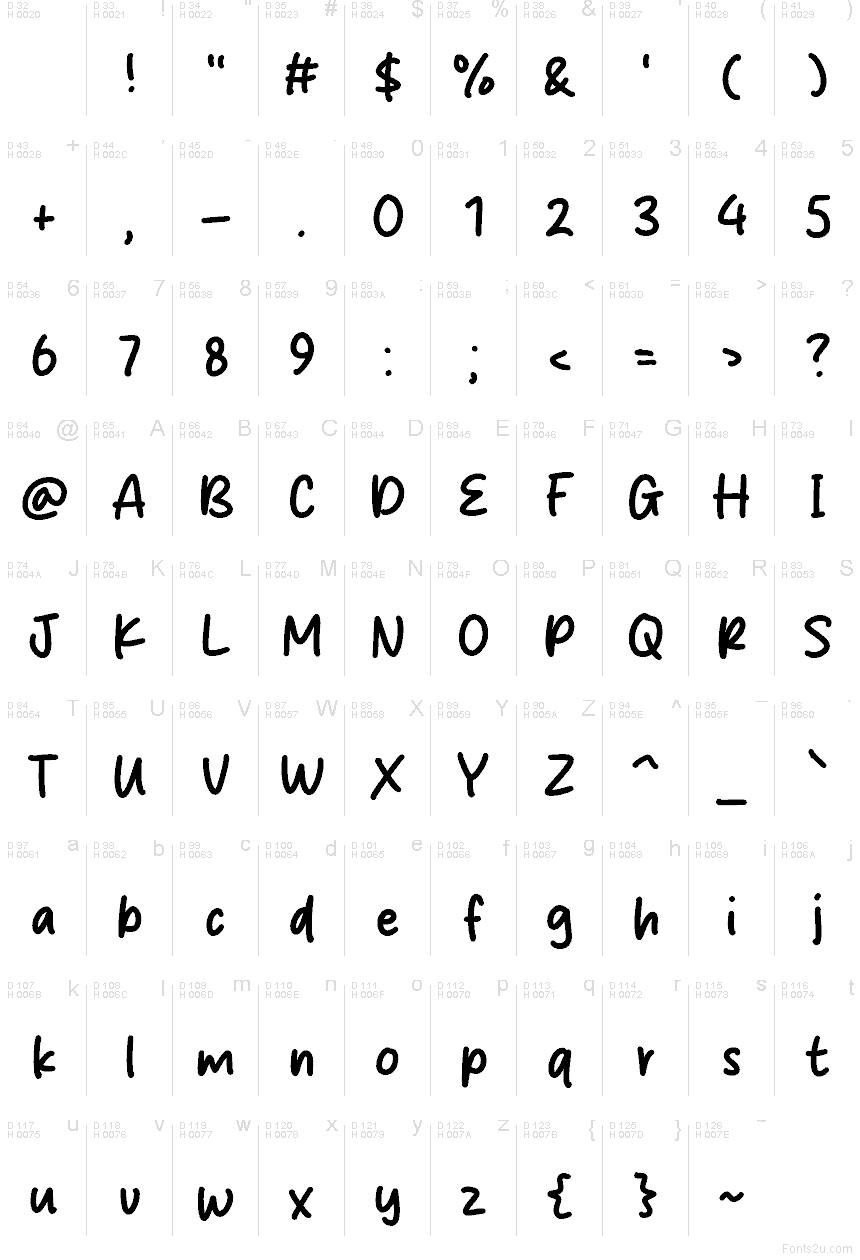
January Strike
January Strike font by Origin Type is a free handwritten font that captures the feel of a bold marker on smooth paper—without sacrificing clarity. Its rounded strokes, steady rhythm, and even spacing give you that casual, hand-drawn warmth while still reading cleanly at smaller sizes, so it never turns into a messy scrawl. The letters feel energetic and friendly, like quick notes made with confidence rather than shaky doodles.
Using January Strike, this free font shines on social media graphics, quote posts, product packaging, lifestyle blogs, planners, and informal branding where you want personality that stays readable. It has enough weight to stand out on busy backgrounds, yet feels soft and approachable on light, airy layouts. Pair January Strike with a simple sans serif for body text and keep this handwriting style slightly larger to preserve its chunky, inked-in charm.